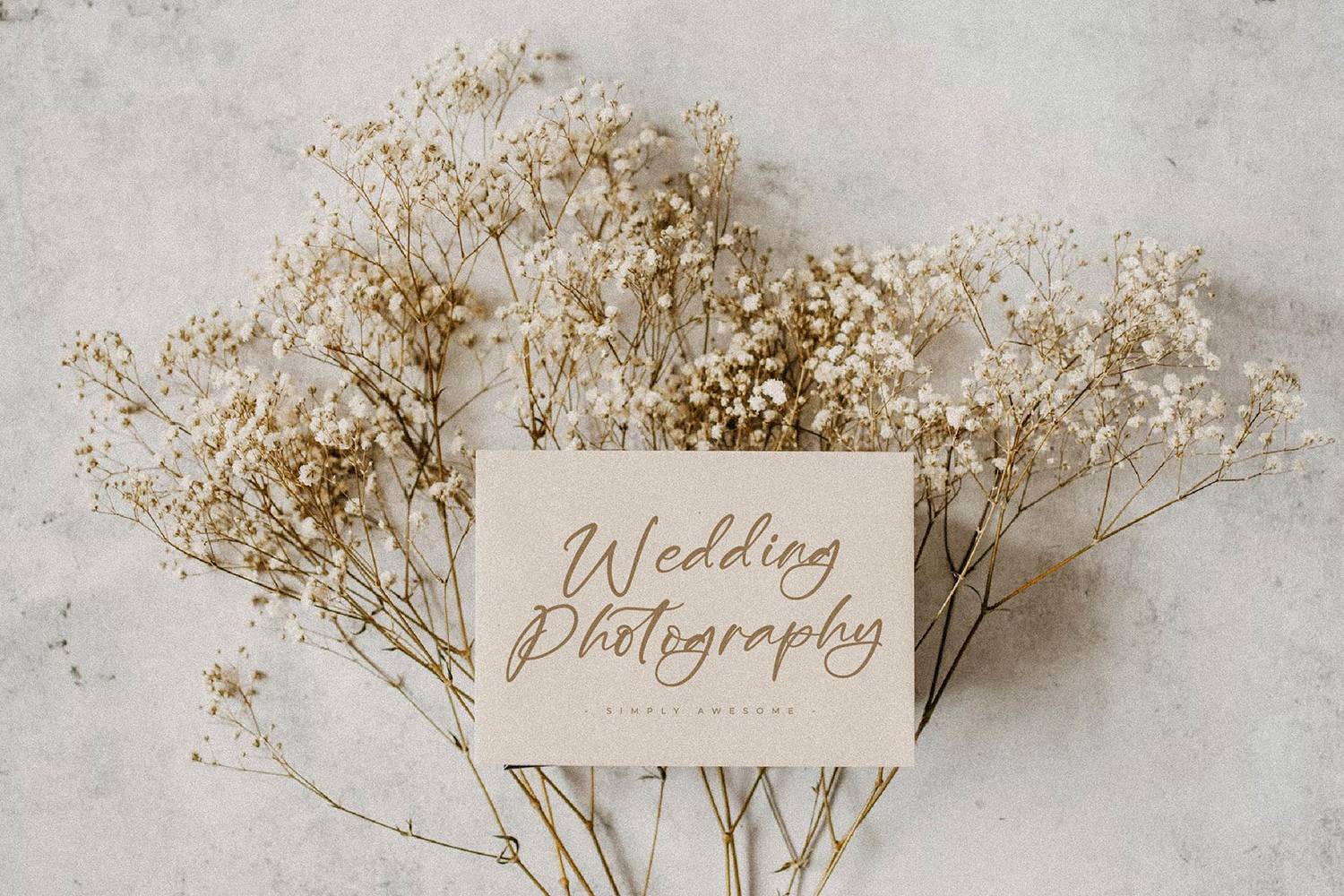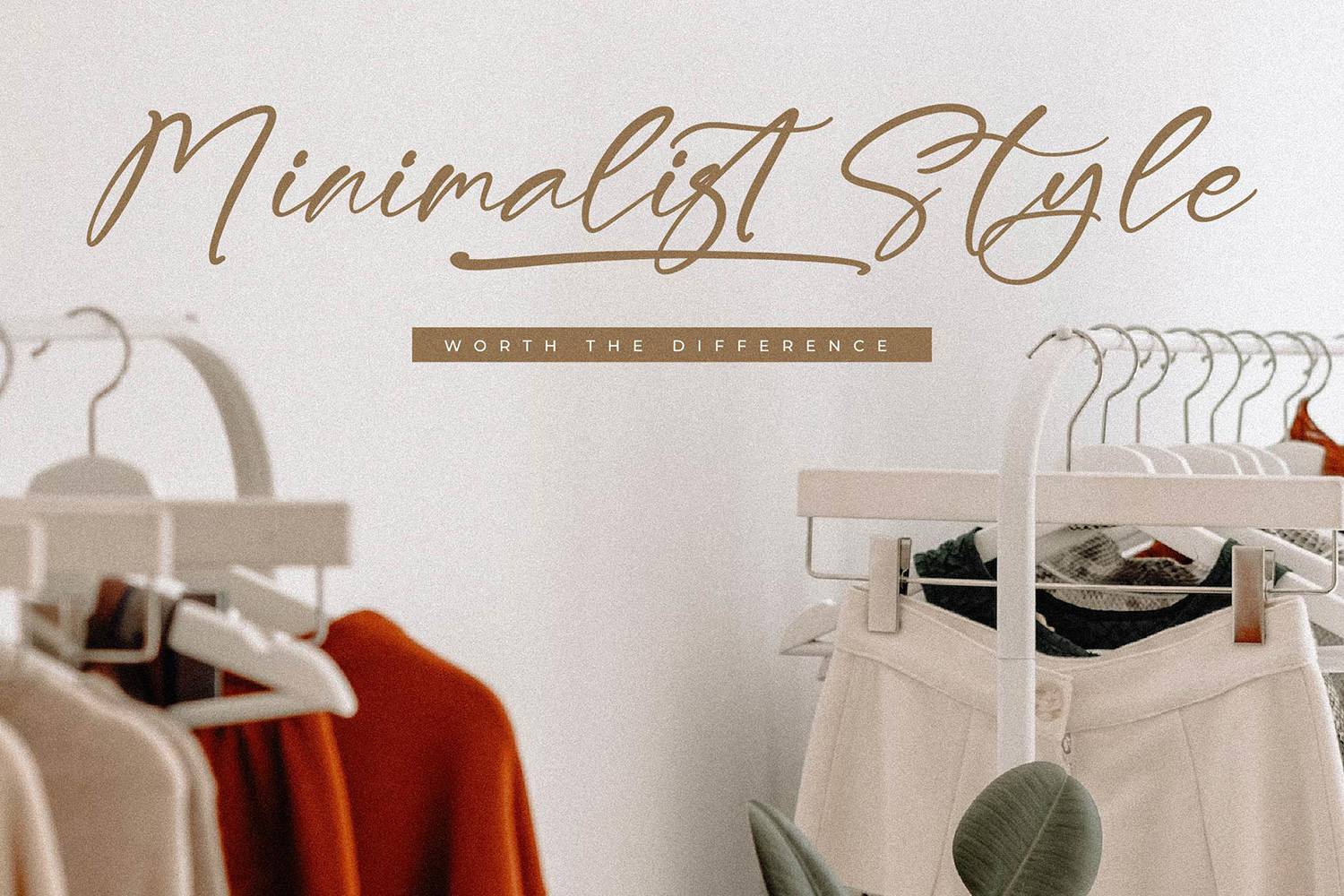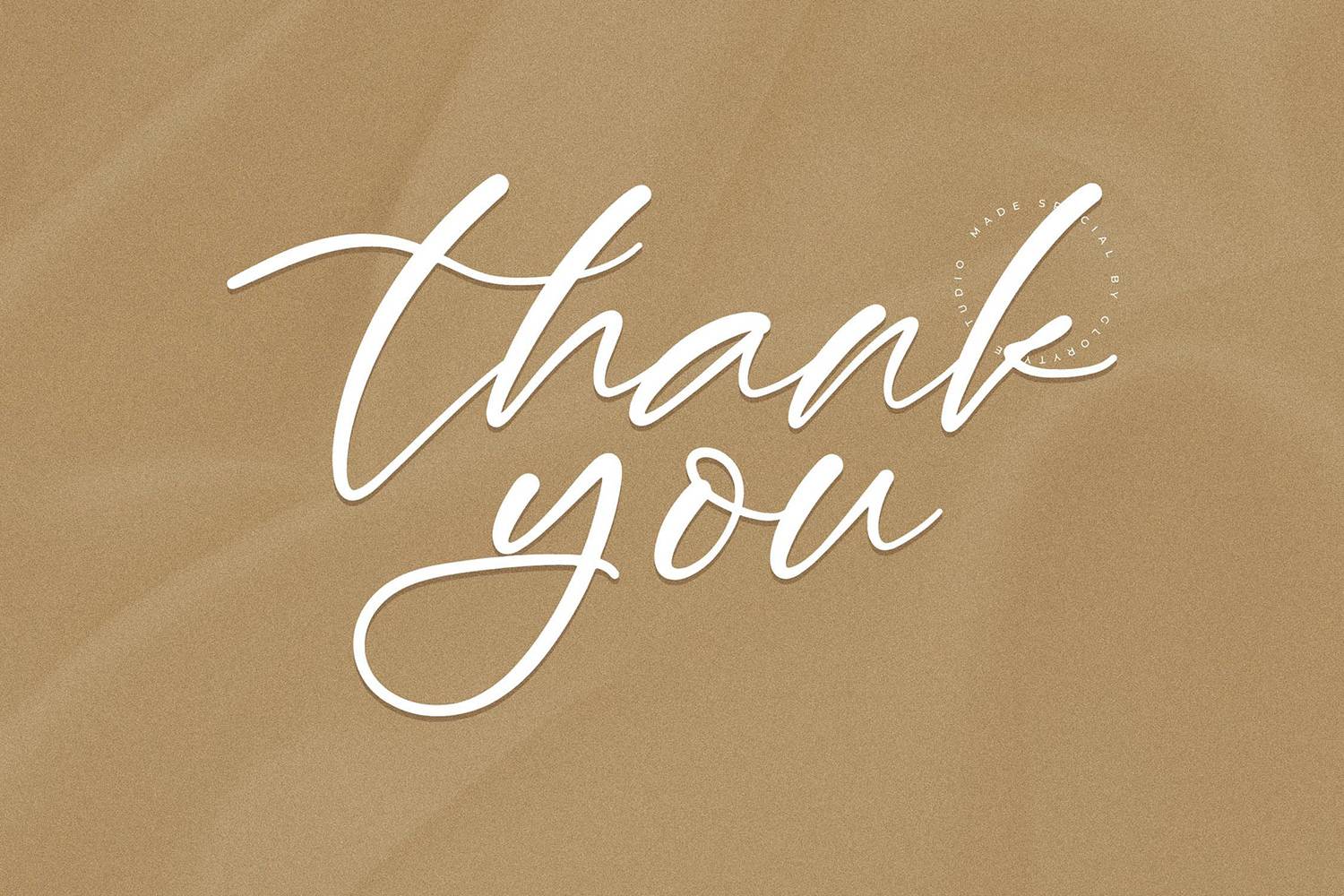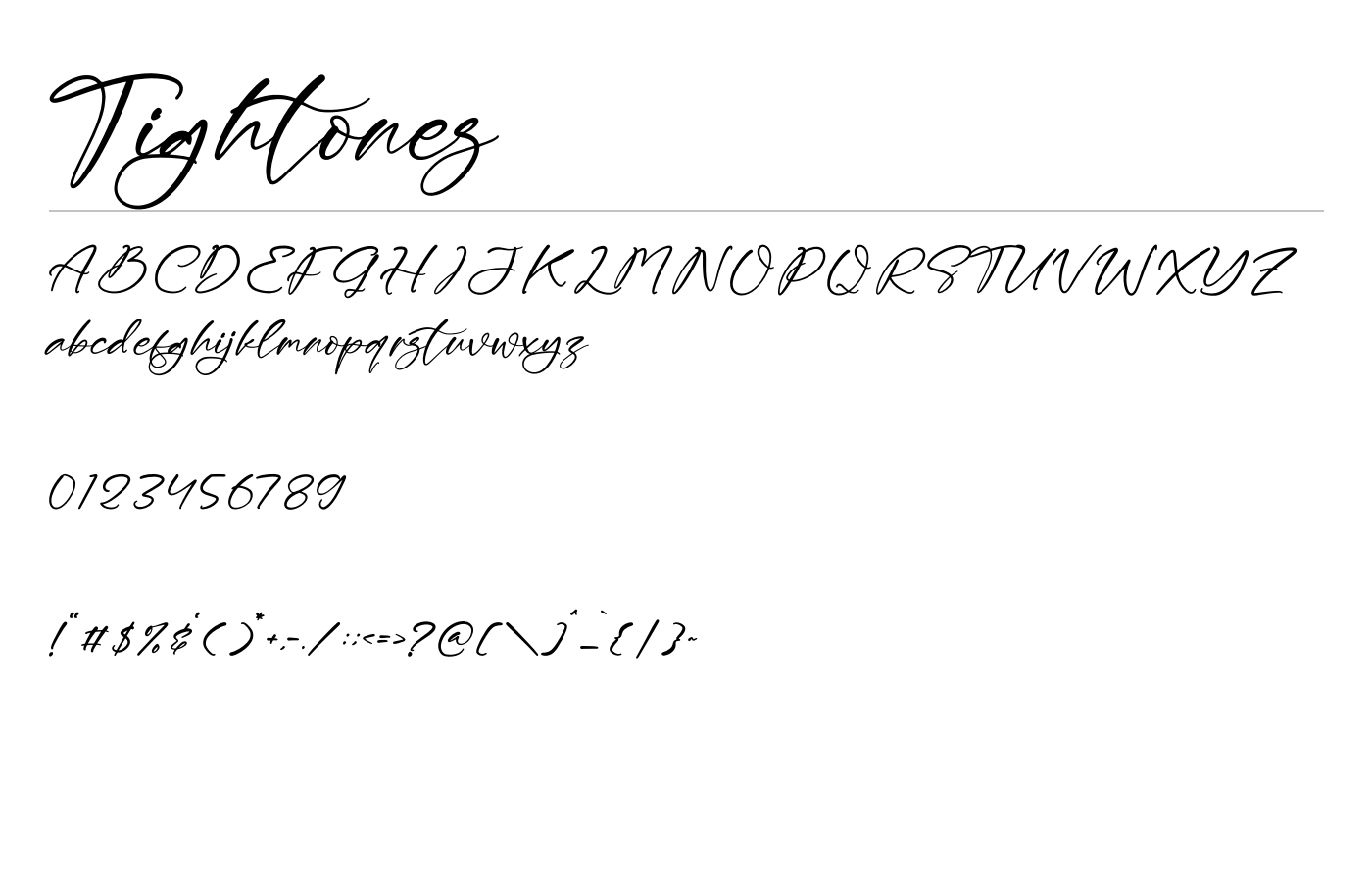
Tightones is a delicate, elegant script font featuring smooth, flowing strokes with a refined, handwritten feel. Its thin weight and tightly spaced letterforms create a sophisticated and graceful look, perfect for luxurious branding, wedding invitations, and stylish editorial designs. This font works well where a personal, artistic touch is desired, adding charm and softness to any project.
Tightones Font
About Tightones Font